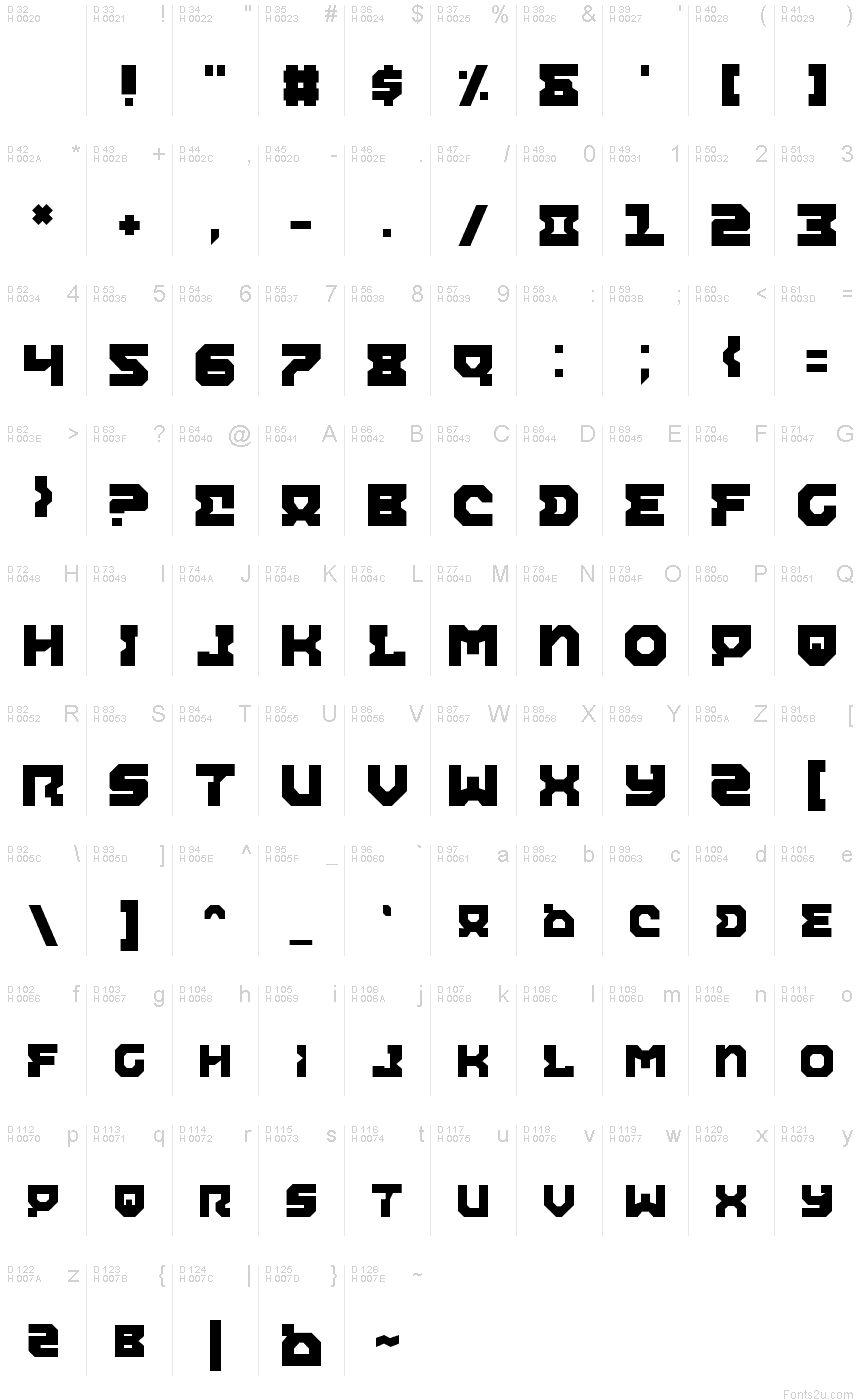
Airacobra Alt
Airacobra Alt font by Iconian Fonts is a free techno display typeface with a bold, angular bite. Its chunky, almost mechanical letterforms lock together like panels on a sci‑fi starship, with faceted corners and solid, blocky strokes that feel engineered rather than drawn. The Airacobra family’s alternate cut shown here has a squarish, octagonal rhythm that keeps every word looking like a custom logo straight out of an arcade cabinet or futuristic HUD.
Using Airacobra Alt, headlines instantly snap into a strong, armored grid that reads clearly even at a distance. This free font shines on game titles, esports team identities, sci‑fi movie posters, tech event branding, bold merch graphics, and futuristic packaging. Keep it big and tight-tracked for maximum impact, and pair it with a lean geometric sans for body copy so the heavy, industrial shapes can do the talking.